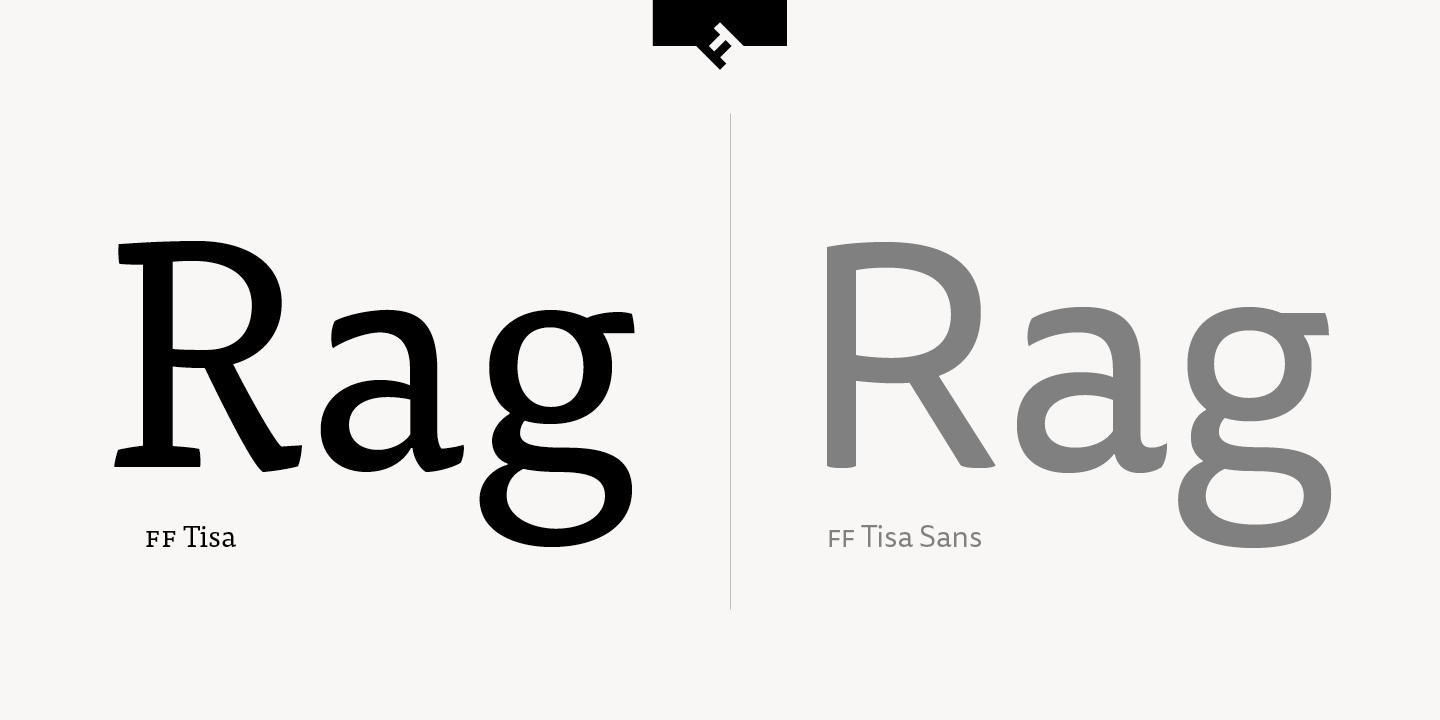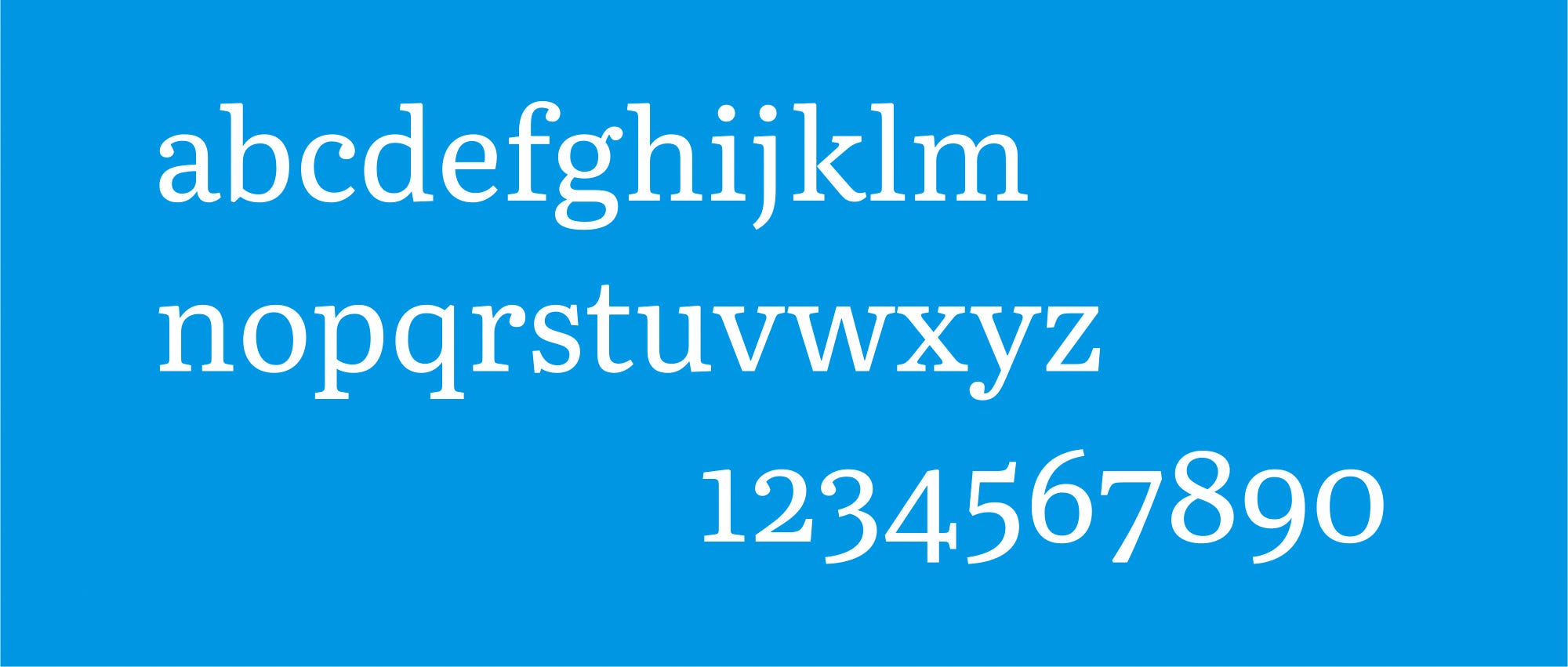
Designers have thousands of typefaces to choose from and step one it's not easy to find the right font for a particular project, but one way to begin the process is to decide serif fonts can have a more clinical and institutional look to them, says todd, who uses.
28+ Serif Font Easy To Read PNG. The font you select conveys your business identity to customers and prospects. Here are the print font. Serif fonts are used for body text because they are very easy to read. Archive of freely downloadable fonts. For most adults reading a book, the difference between sans serif and serif fonts it's. I've also seen studies that definitivly prove each case. I've been caught in this debate before trying to defend one type style vs. Vistaprint recommends the top 12 most easy to read fonts for your business website. This lack of feet makes sans serif fonts a bit easier to read, as your brain has to process less visual information. Serif fonts are ever so slightly harder to read because they have little feet on them. Consider the easiest font to read when designing your website. As others have noted, it really depends on the application and the amount of copy. The conclusion being that serif fonts are easier to read when it comes to fonts on paper. Browse by alphabetical listing, by style, by author or by popularity. San serif fonts still have their place in web design.
30 Best Free Sans Serif And Serif Fonts Rare. Here are the print font. Consider the easiest font to read when designing your website. For most adults reading a book, the difference between sans serif and serif fonts it's. Serif fonts are used for body text because they are very easy to read. The conclusion being that serif fonts are easier to read when it comes to fonts on paper. This lack of feet makes sans serif fonts a bit easier to read, as your brain has to process less visual information. Vistaprint recommends the top 12 most easy to read fonts for your business website. The font you select conveys your business identity to customers and prospects. Serif fonts are ever so slightly harder to read because they have little feet on them. I've also seen studies that definitivly prove each case. Browse by alphabetical listing, by style, by author or by popularity. San serif fonts still have their place in web design. As others have noted, it really depends on the application and the amount of copy. Archive of freely downloadable fonts. I've been caught in this debate before trying to defend one type style vs.
Fonts (71) slab serif fonts (21) uncategorized (0) vector image (35) vietnamese script (19). Serif fonts are widely considered more legible for body copy, but scientific study has been our brains theoretically have an easier time processing letterforms with these pronounced line endings. In this list, you find the 15 best fonts that work with html and css. Fonts with serifs are particularly useful for large blocks of text. Archive of freely downloadable fonts. The serifs make it easy for the eye to travel over the text. Serif fonts are very easy to read because of the large block of text.
Fonts with serifs are particularly useful for large blocks of text. Serif fonts are ever so slightly harder to read because they have little feet on them. They create a sense of formality and elegance. As others have noted, it really depends on the application and the amount of copy. In this article, we'll give you the 20 best if chosen correctly, it can improve the overall aesthetic of your page and allows visitors to read the for example, the alternatives for the sans serif font like helvetica are acumin and univers. Vistaprint recommends the top 12 most easy to read fonts for your business website. Serif fonts are widely considered more legible for body copy, but scientific study has been our brains theoretically have an easier time processing letterforms with these pronounced line endings. The font you select conveys your business identity to customers and prospects. Serif fonts are very easy to read because of the large block of text. 1 2 3 4 5 6 7 8 9 10. I've been caught in this debate before trying to defend one type style vs. Old style, transitional, and modern. Download 10,000 fonts with one click for $19.95. In traditional letterpress systems, spacing is achieved with small pieces of metal inserted between the letters, and by the spacing between the letter form and the edge of the print block. Fonts with serifs are particularly useful for large blocks of text. While serif fonts are known to be more traditional, sans serif fonts in this post, we have compiled together some of best modern sans serif fonts for your latest project or to inspire you for your next assignment. Serif fonts are used for body text because they are very easy to read. The serifs make it easy for the eye to travel over the text. It's the easiest for most people to read (with or without glasses) and the machines like them, too. Serif fonts have a small stroke at the edges of each letter. The style of this font are minimalist, signature, modern, elegant, luxury Web safe fonts are available across different operating systems and devices. But on the upside, it is an easy font for dyslexic people to read. Look at the first three families: Download and install free serif fonts of the best quality from free fonts and use on your own personal and business related design purposes. Always remember that without serif, you will need to have more type serif font and its uses. Html fonts play a big role in a website's appearance and readability. Serif font comprises four subgroups incorporating old style, transitional, didone and slab serif. Browse by alphabetical listing, by style, by author or by popularity. Archive of freely downloadable fonts. The font adds value to your text.
Easyreading The High Legibility Font Pixartprinting. The font you select conveys your business identity to customers and prospects. This lack of feet makes sans serif fonts a bit easier to read, as your brain has to process less visual information. As others have noted, it really depends on the application and the amount of copy. Serif fonts are used for body text because they are very easy to read. The conclusion being that serif fonts are easier to read when it comes to fonts on paper. Archive of freely downloadable fonts. For most adults reading a book, the difference between sans serif and serif fonts it's. Vistaprint recommends the top 12 most easy to read fonts for your business website. Here are the print font. I've been caught in this debate before trying to defend one type style vs. Browse by alphabetical listing, by style, by author or by popularity. I've also seen studies that definitivly prove each case. Serif fonts are ever so slightly harder to read because they have little feet on them. Consider the easiest font to read when designing your website. San serif fonts still have their place in web design.
9 Easiest Fonts To Read On Posters Business Cards More Banana Print. Consider the easiest font to read when designing your website. Serif fonts are used for body text because they are very easy to read. Serif fonts are ever so slightly harder to read because they have little feet on them. San serif fonts still have their place in web design. Archive of freely downloadable fonts. This lack of feet makes sans serif fonts a bit easier to read, as your brain has to process less visual information. I've been caught in this debate before trying to defend one type style vs. Browse by alphabetical listing, by style, by author or by popularity. The conclusion being that serif fonts are easier to read when it comes to fonts on paper. As others have noted, it really depends on the application and the amount of copy. Vistaprint recommends the top 12 most easy to read fonts for your business website. I've also seen studies that definitivly prove each case. For most adults reading a book, the difference between sans serif and serif fonts it's. The font you select conveys your business identity to customers and prospects. Here are the print font.
Web safe fonts are available across different operating systems and devices.
30 Incredibly Readable Serif Fonts For Your Next Web Design Project Elegant Themes Blog. As others have noted, it really depends on the application and the amount of copy. Browse by alphabetical listing, by style, by author or by popularity. Serif fonts are ever so slightly harder to read because they have little feet on them. The font you select conveys your business identity to customers and prospects. Archive of freely downloadable fonts. Here are the print font. This lack of feet makes sans serif fonts a bit easier to read, as your brain has to process less visual information. Vistaprint recommends the top 12 most easy to read fonts for your business website. Consider the easiest font to read when designing your website. I've also seen studies that definitivly prove each case. I've been caught in this debate before trying to defend one type style vs. Serif fonts are used for body text because they are very easy to read. For most adults reading a book, the difference between sans serif and serif fonts it's. The conclusion being that serif fonts are easier to read when it comes to fonts on paper. San serif fonts still have their place in web design.
But on the upside, it is an easy font for dyslexic people to read.
30 Incredibly Readable Serif Fonts For Your Next Web Design Project Elegant Themes Blog. Vistaprint recommends the top 12 most easy to read fonts for your business website. Consider the easiest font to read when designing your website. Serif fonts are ever so slightly harder to read because they have little feet on them. San serif fonts still have their place in web design. Here are the print font. Archive of freely downloadable fonts. As others have noted, it really depends on the application and the amount of copy. The conclusion being that serif fonts are easier to read when it comes to fonts on paper. Serif fonts are used for body text because they are very easy to read. I've been caught in this debate before trying to defend one type style vs. This lack of feet makes sans serif fonts a bit easier to read, as your brain has to process less visual information. Browse by alphabetical listing, by style, by author or by popularity. I've also seen studies that definitivly prove each case. For most adults reading a book, the difference between sans serif and serif fonts it's. The font you select conveys your business identity to customers and prospects.
15 Free Serif Fonts To Use In Your Work Inspirationfeed. The font you select conveys your business identity to customers and prospects. As others have noted, it really depends on the application and the amount of copy. San serif fonts still have their place in web design. I've also seen studies that definitivly prove each case. Archive of freely downloadable fonts. Consider the easiest font to read when designing your website. Serif fonts are ever so slightly harder to read because they have little feet on them. Vistaprint recommends the top 12 most easy to read fonts for your business website. Serif fonts are used for body text because they are very easy to read. This lack of feet makes sans serif fonts a bit easier to read, as your brain has to process less visual information. The conclusion being that serif fonts are easier to read when it comes to fonts on paper. Here are the print font. For most adults reading a book, the difference between sans serif and serif fonts it's. Browse by alphabetical listing, by style, by author or by popularity. I've been caught in this debate before trying to defend one type style vs.
Serif font comprises four subgroups incorporating old style, transitional, didone and slab serif. Old style, transitional, and modern. Serif fonts are used for body text because they are very easy to read. Laviossa elegant serif font is a stylish font that is classic, elegant and unique font that uses ligatures to smoothly link letters. Sans serif fonts, as you might already know, are the fonts with no projecting lines at the ends. San serif fonts still have their place in web design. But on the upside, it is an easy font for dyslexic people to read. Comic sans ms is a playful, whimsical alternative to other sans serif options. The font you select conveys your business identity to customers and prospects. As others have noted, it really depends on the application and the amount of copy.